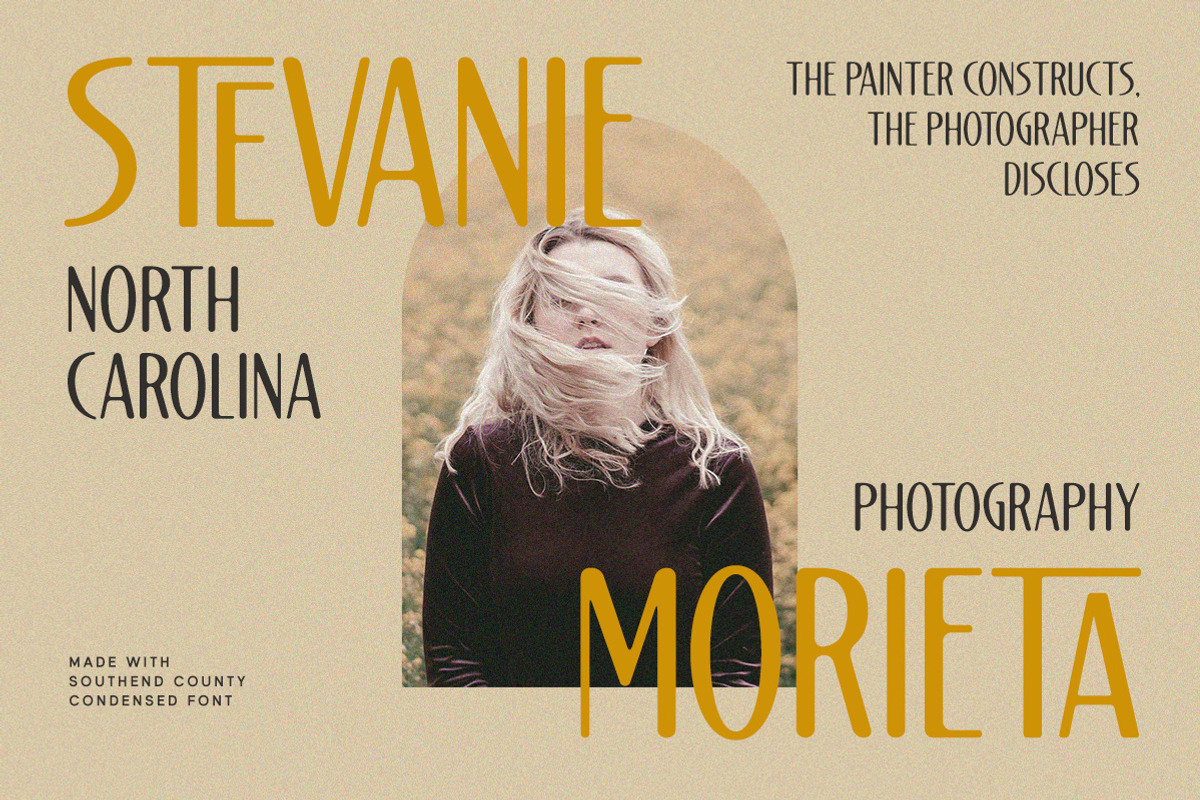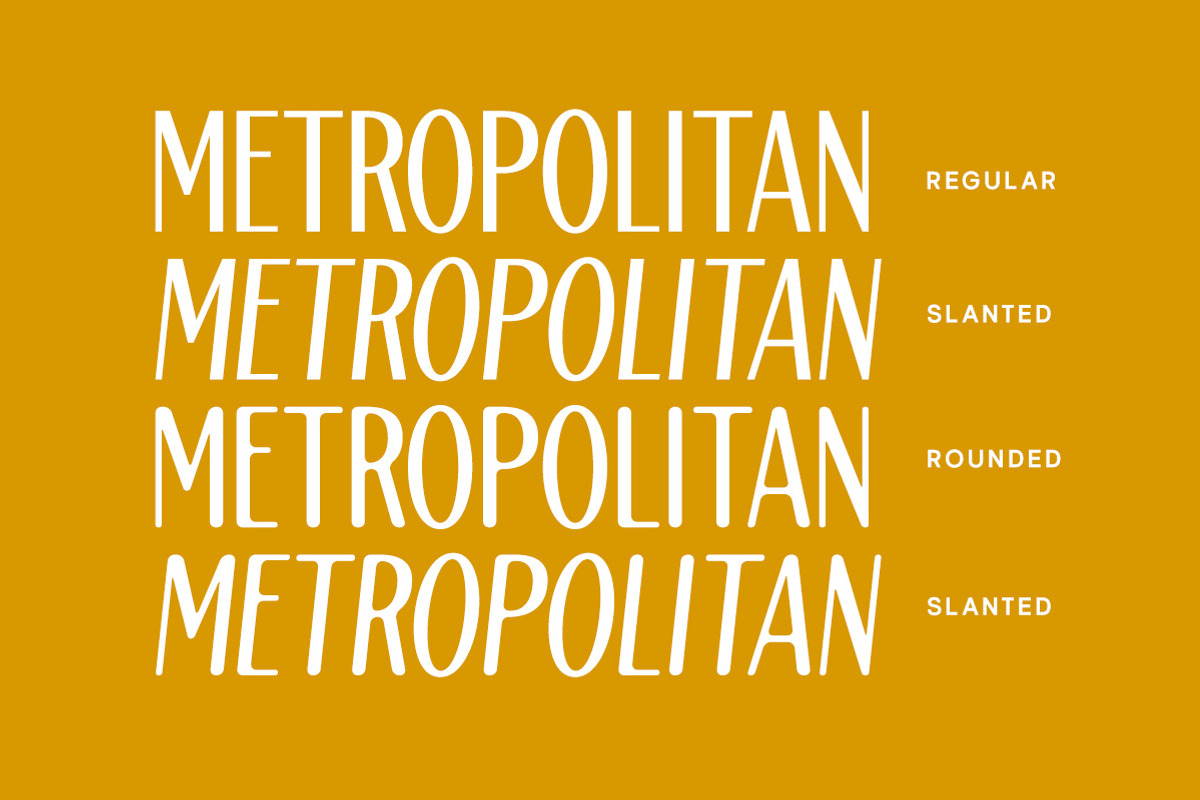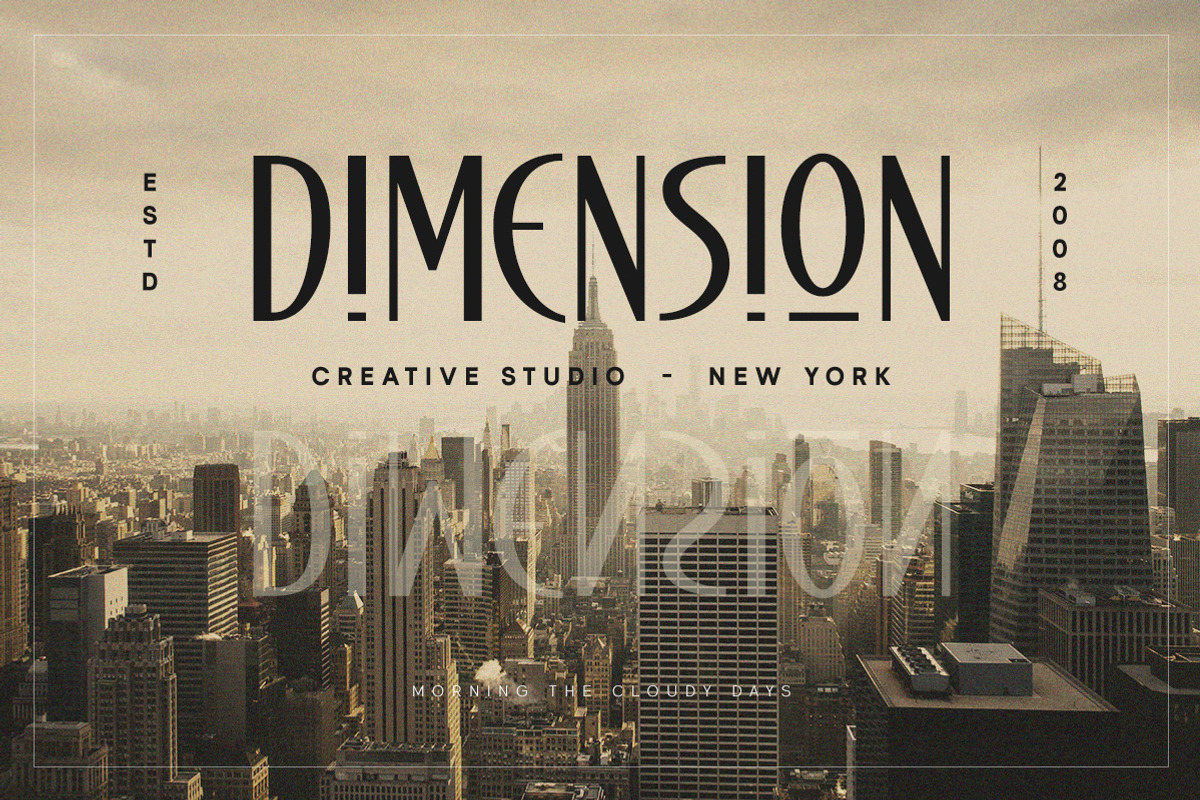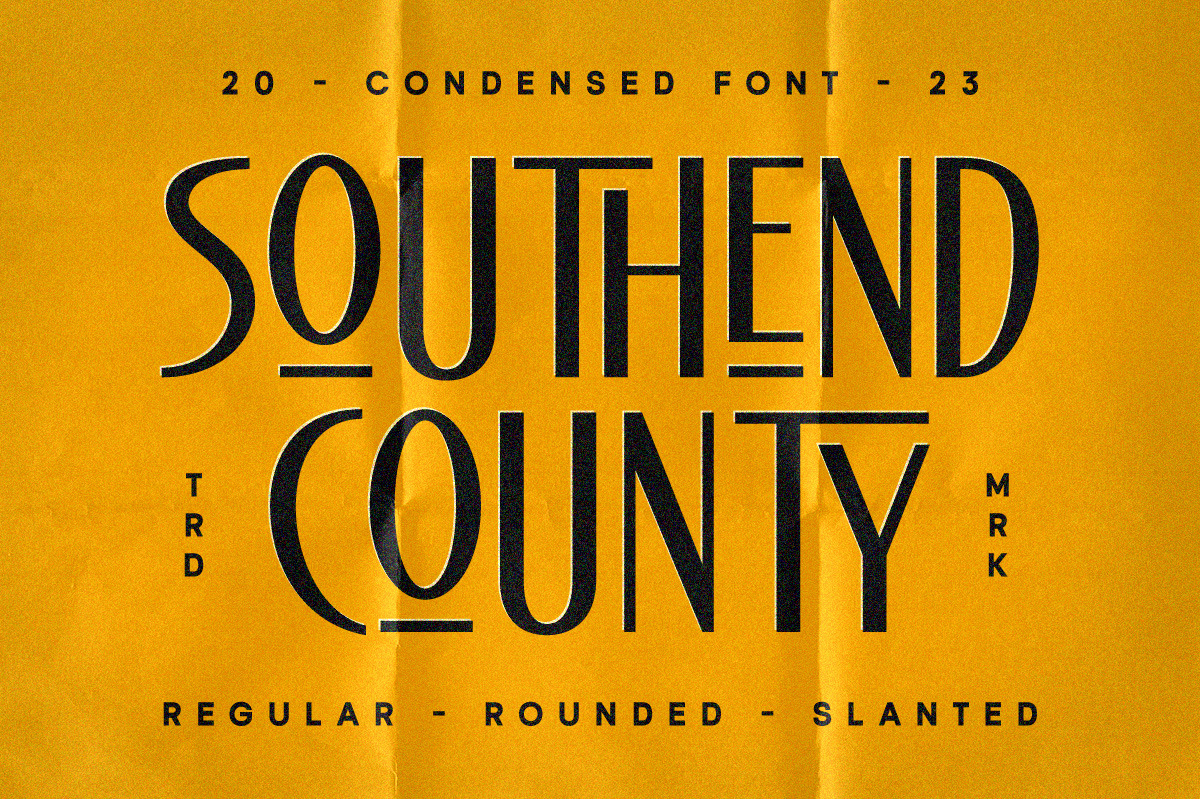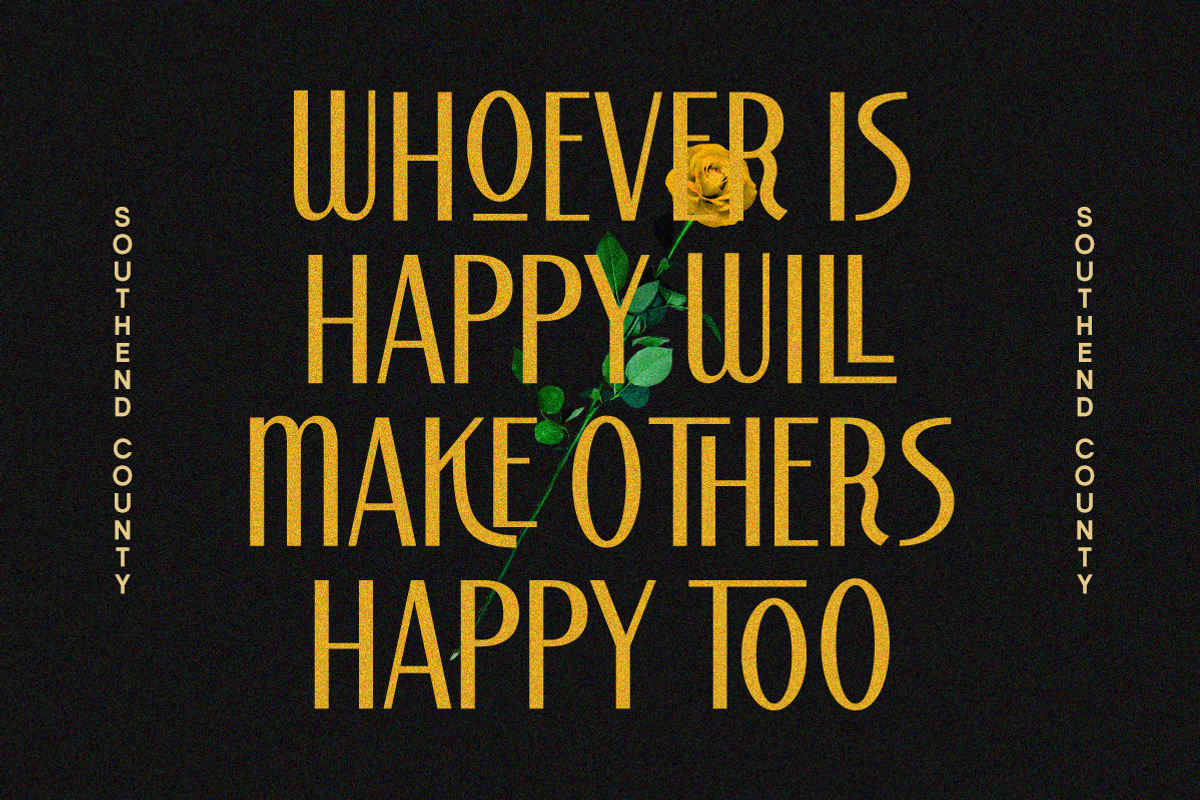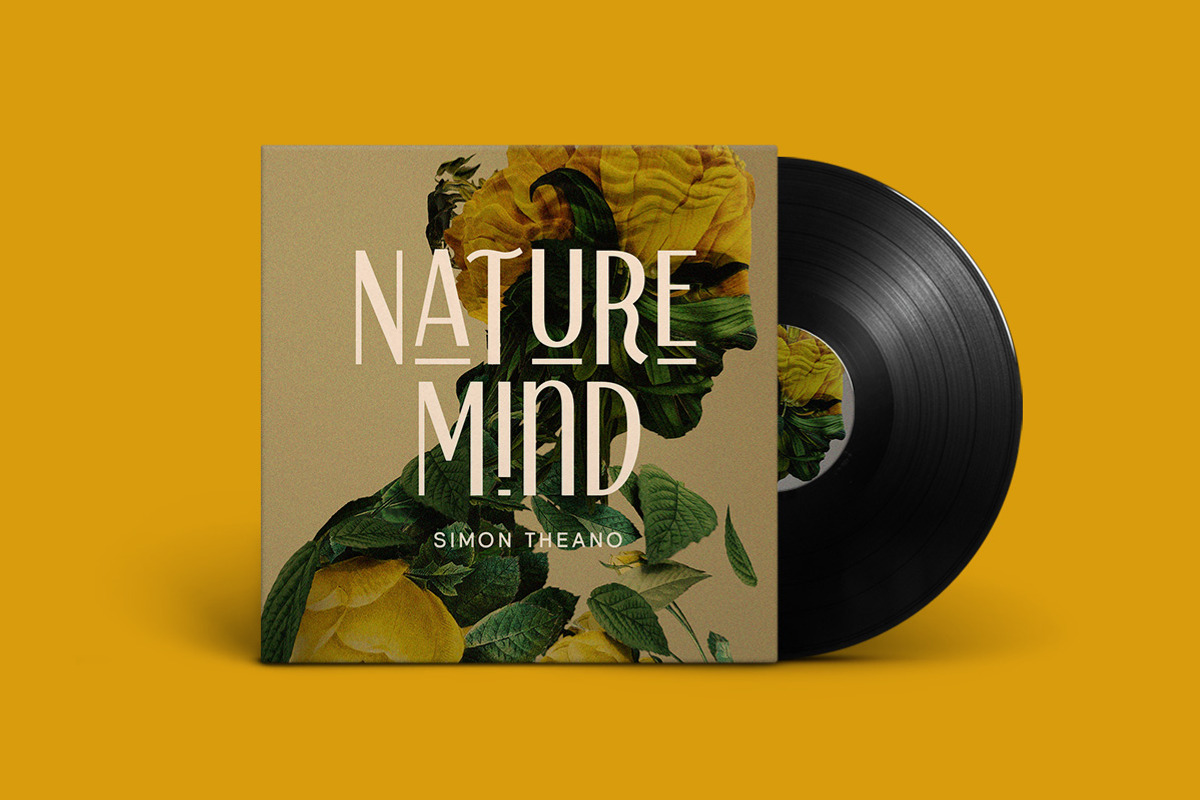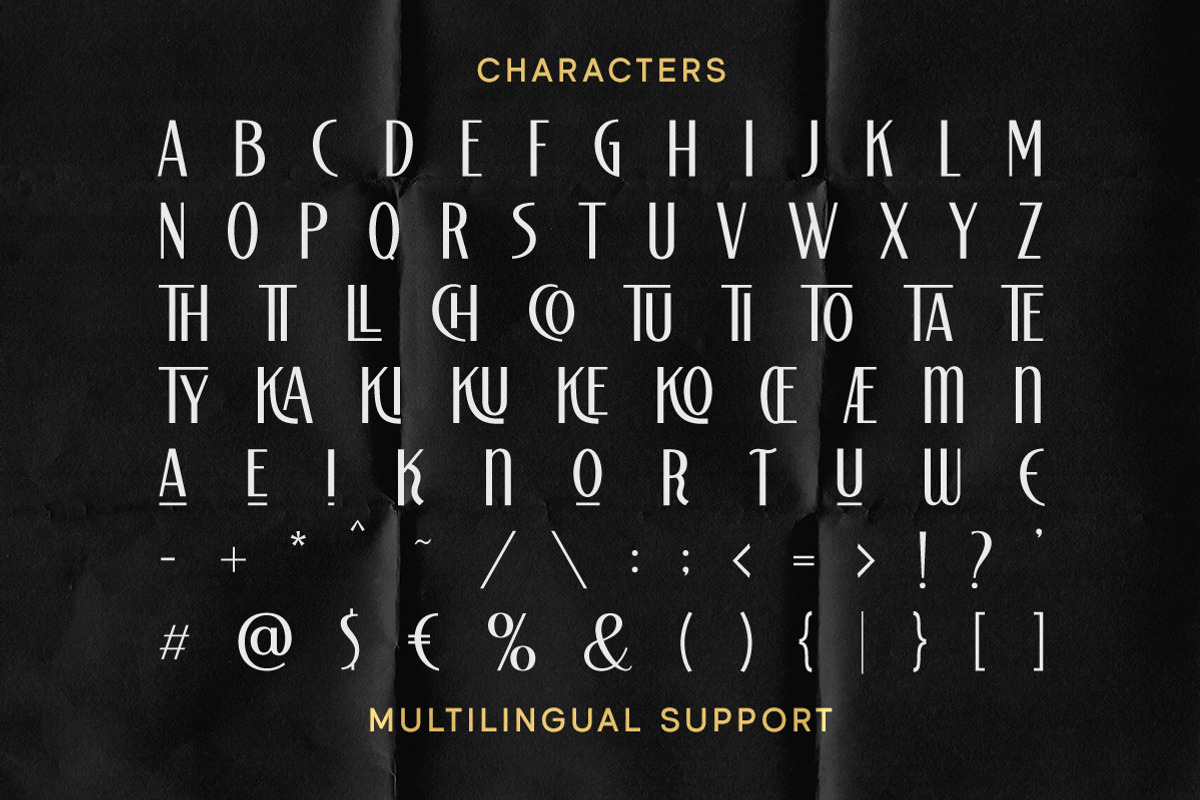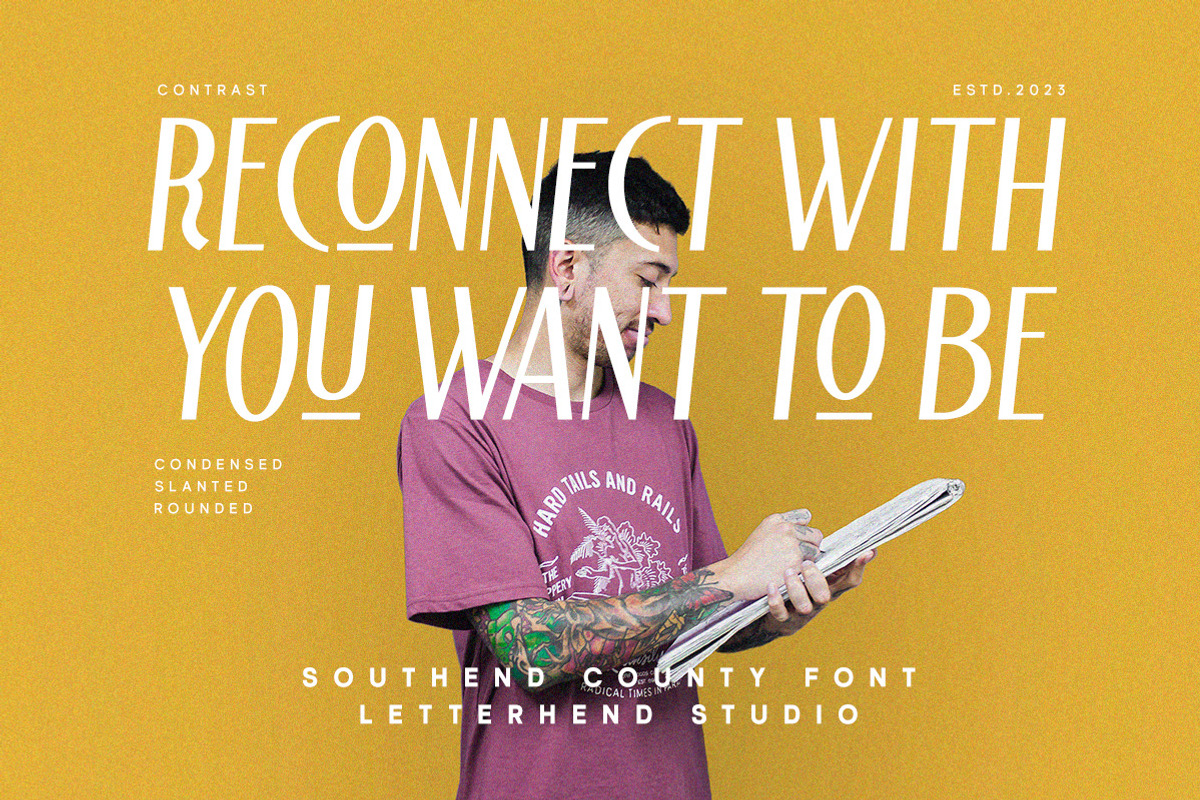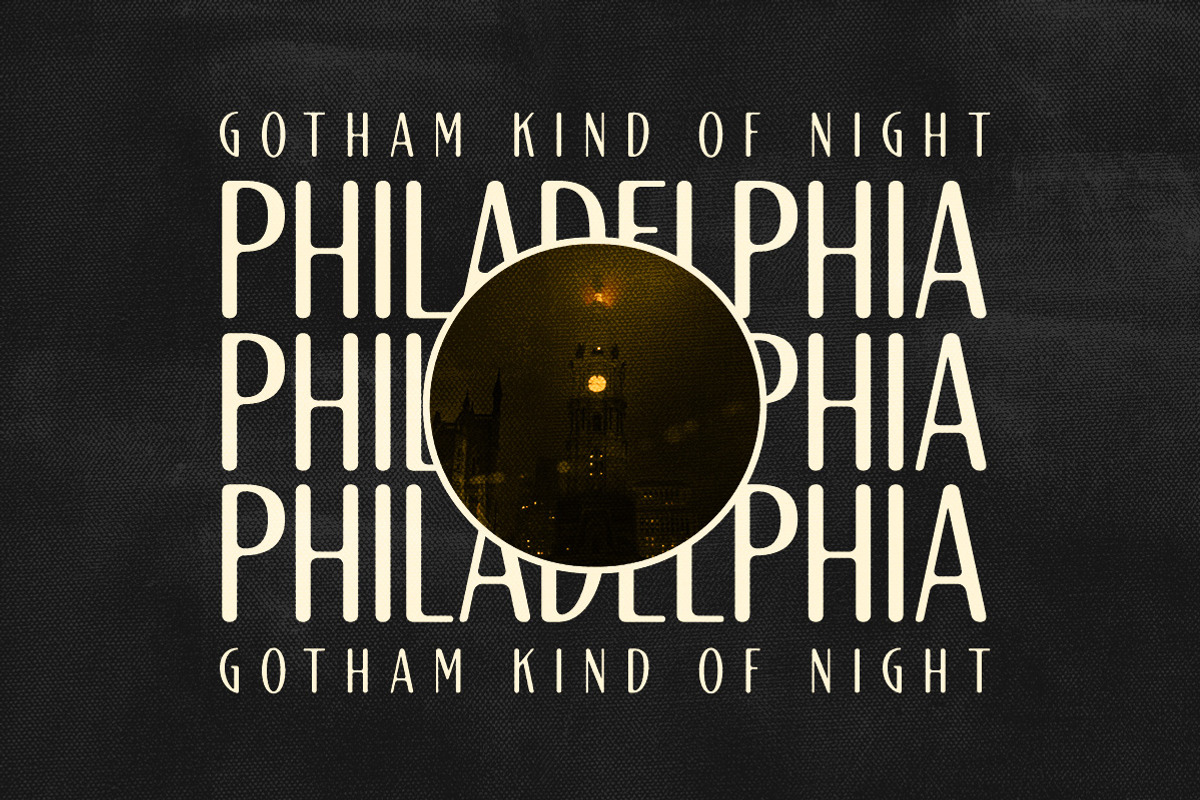
Southend Country - Condensed Font
Southend Country is a condensed font that combines classic elegance with modern looks. With its condensed design, it offers a sophisticated look that’s perfect for headlines your design. This font comes in 3 styles - Regular, Rounded, and Slanted. This font perfectly made to be applied especially in logo, and the other various formal forms such as invitations, labels, logos, magazines, books, greeting / wedding cards, packaging, fashion, make up, stationery, novels, labels or any type of advertising purpose.